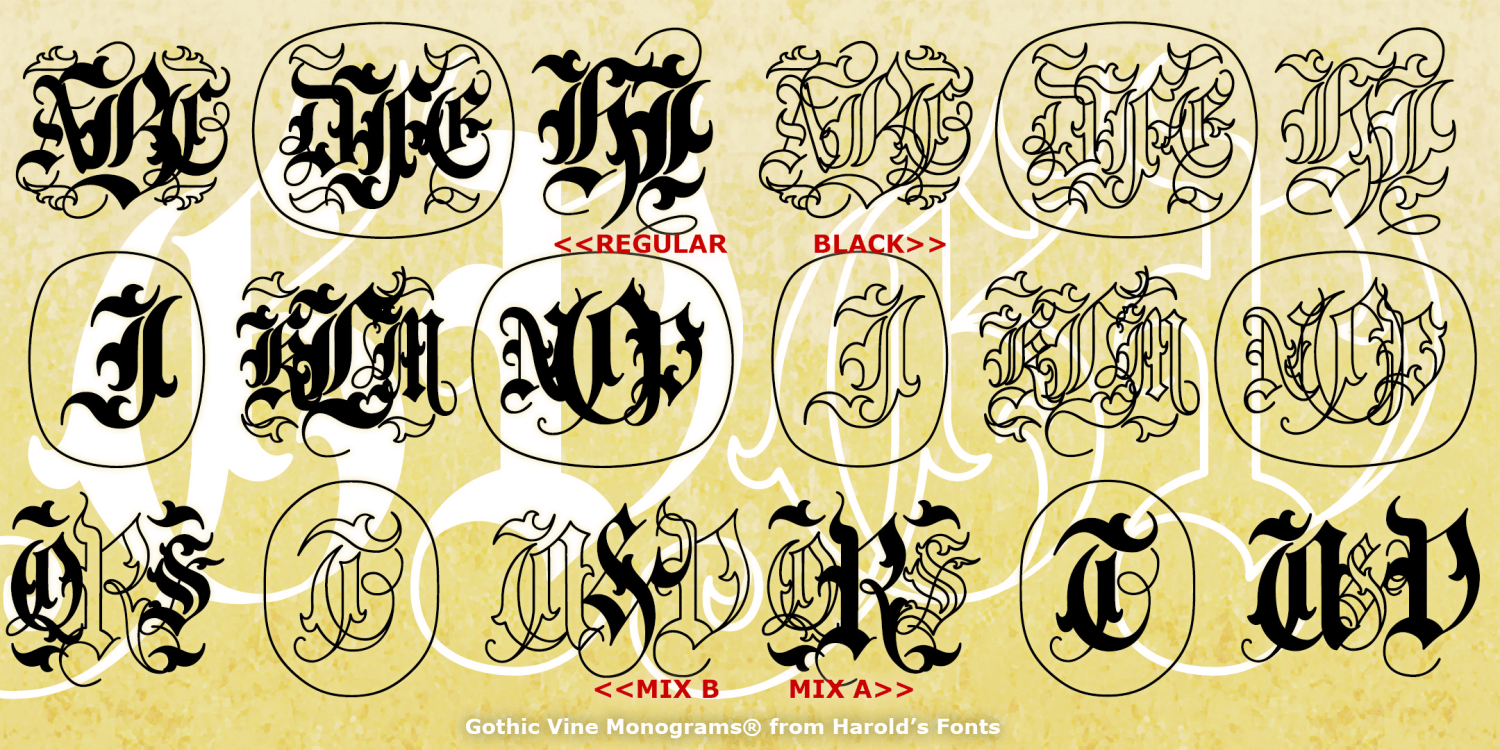
Gothic Vine Monograms
GOTHIC VINE MONOGRAMS® lets you make custom monograms in a dramatic and distinctive “Old English” style. Solid and Outline fonts, plus mixes and decorative elements, give you great flexibility in creating your 1-, 2-, or 3-letter monograms.